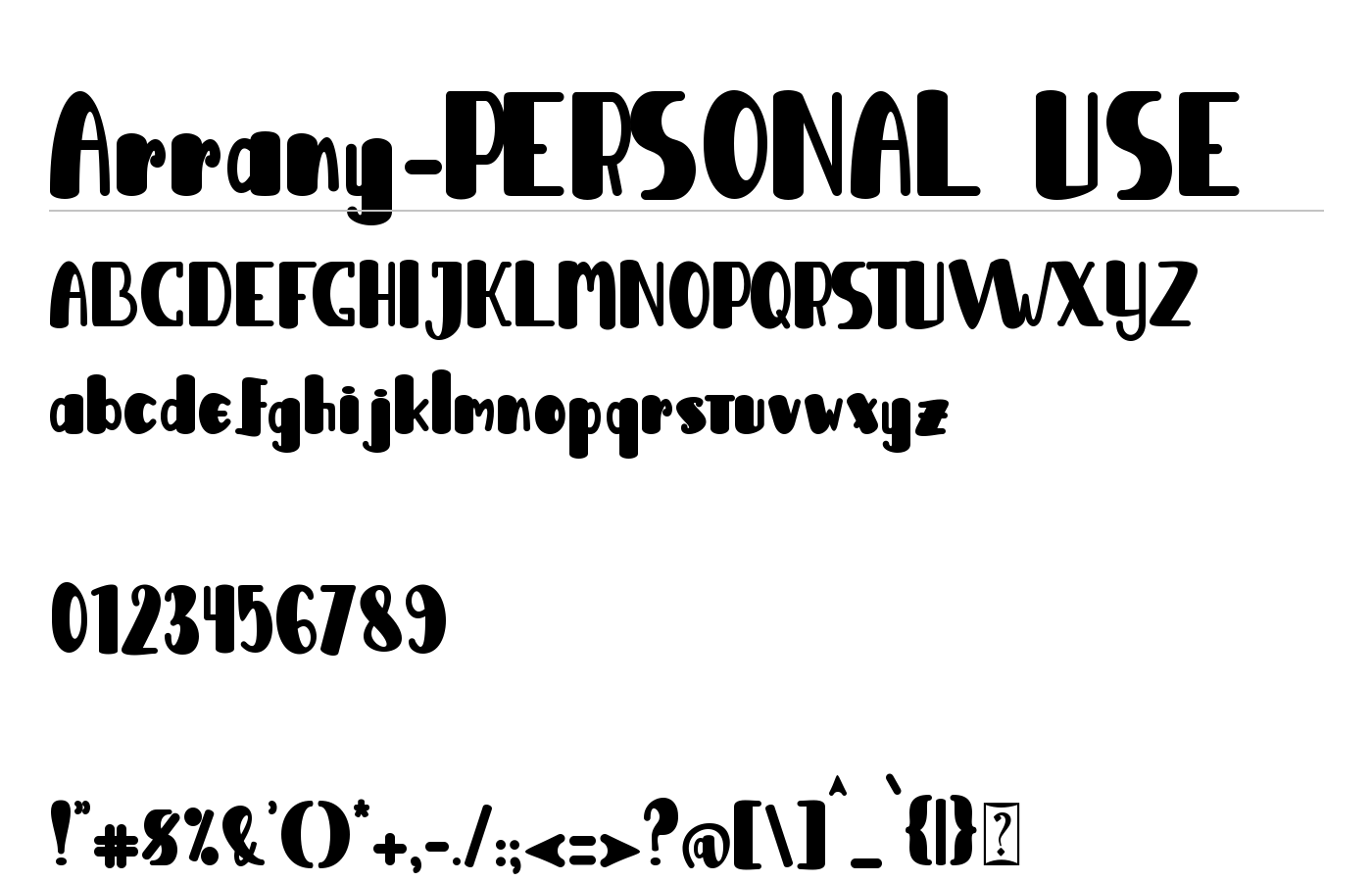
Arrany-PERSONAL USE is a playful, bold sans serif font with a quirky, hand-crafted feel, featuring thick, rounded strokes and uneven letterforms that give it a friendly and informal personality. Its tall x-height and lively shapes make it ideal for eye-catching headlines, logos, and creative projects that want to convey warmth and approachability. This font works best in fun, casual branding or display uses where a unique, energetic style is needed.